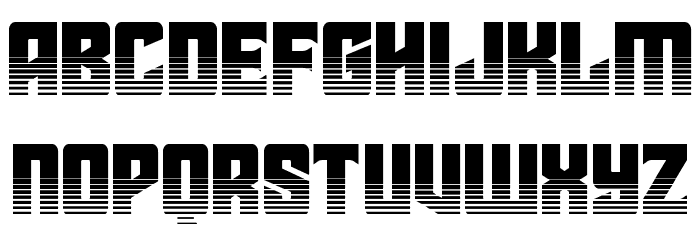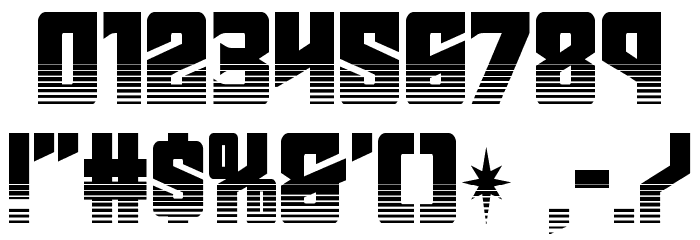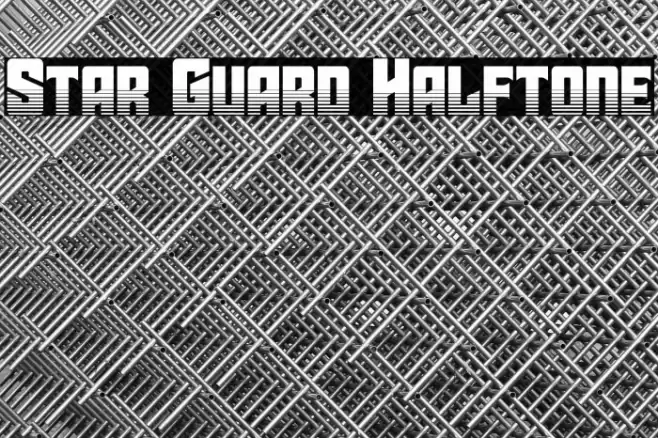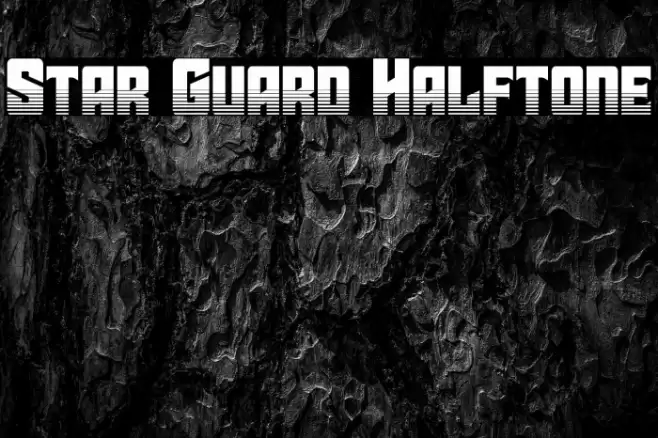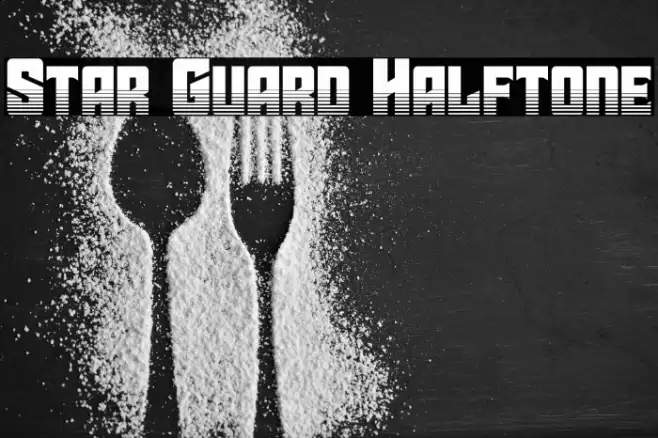
Star Guard Halftone Font
This font features a bold, futuristic design with a halftone effect that creates a sense of movement and depth. The characters are blocky and geometric, with horizontal lines cutting through the lower half, giving a dynamic, almost digital appearance. The uppercase and lowercase letters maintain a consistent style, while the numbers and special characters integrate seamlessly with the overall design. This font is visually striking and commands attention, making it ideal for projects that require a modern and edgy aesthetic.
A bold, futuristic font with a halftone effect and geometric design.
- Proposed Projects: Ideal for sci-fi themed posters, video game titles, tech branding, and futuristic event invitations.
- Overall Style: Futuristic